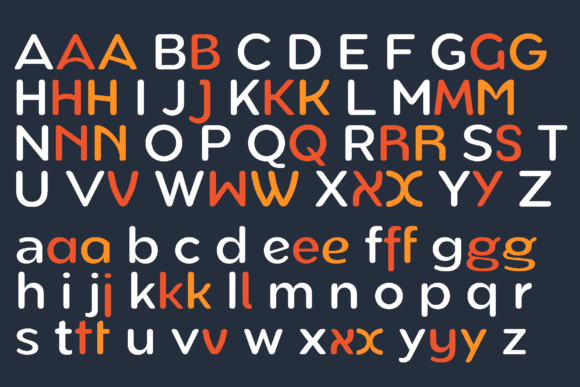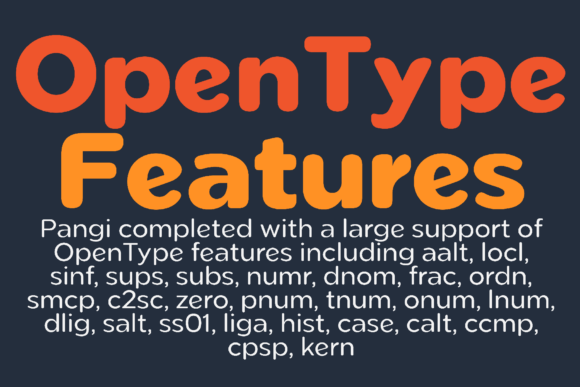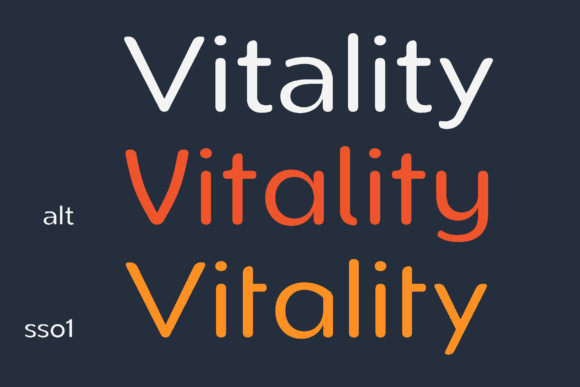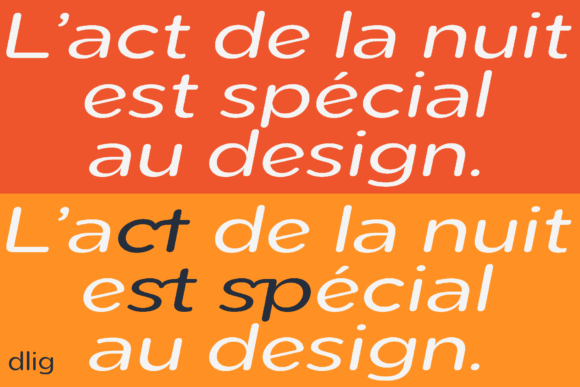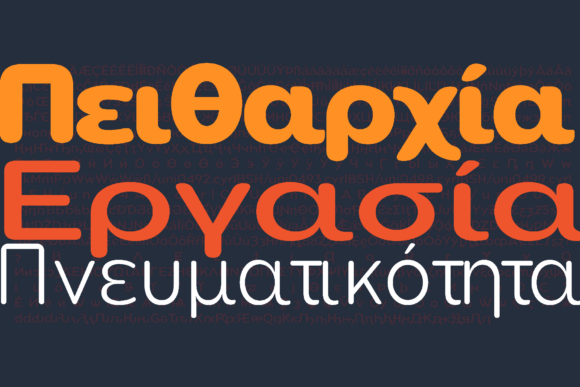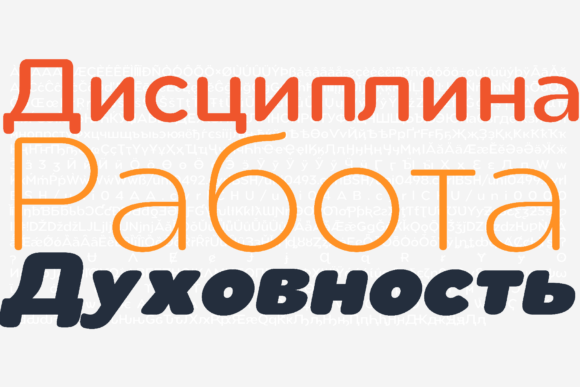
Introduction to Pangirounded Regular Font
Pangi Rounded: A Smooth, Modern Geometric Font Pangi Rounded is a modern geometric font family with a softer, friendlier edge.
Built from the same clean foundation of circles, squares, and triangles as the rest of the Pangi family, it adds rounded details that bring a warm and approachable feel to your designs Perfect for both digital and print use, Pangi Rounded delivers clarity and style while keeping things relaxed and versatile.
Key Features of Pangirounded Regular Font
Why Choose Pangirounded Regular Font?
Pangirounded Regular Font offers exceptional quality and versatility, making it a valuable addition to your design toolkit. Whether you’re creating for personal projects or commercial use, Pangirounded Regular Font delivers professional results.